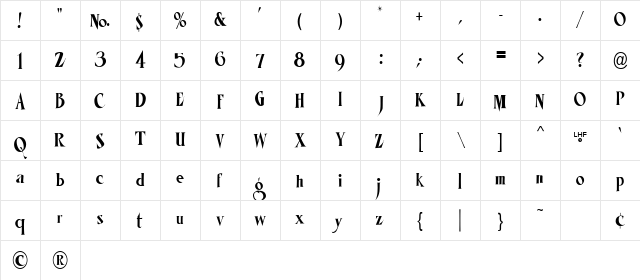
Complete LHFMisterKookyCOND Medium glyph index. Displaying only characters natively supported by LHFMisterKookyCOND Medium font.
LHFMisterKookyCOND is a composed and adaptable typeface that performs quietly and consistently across a wide range of design contexts. Its narrow stance lets it pack a punch even in space-constrained designs.